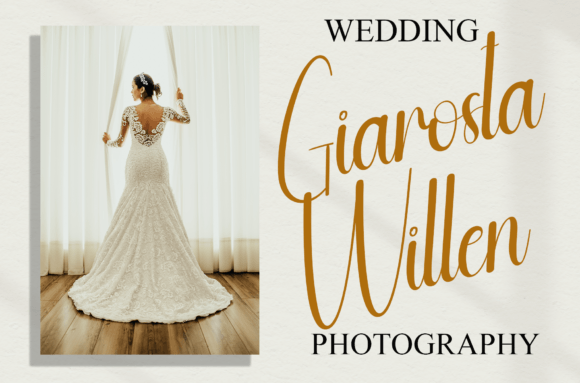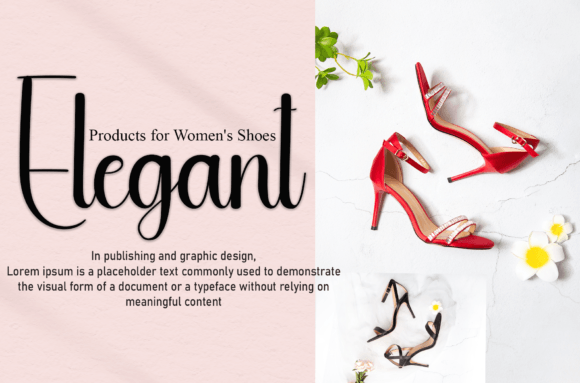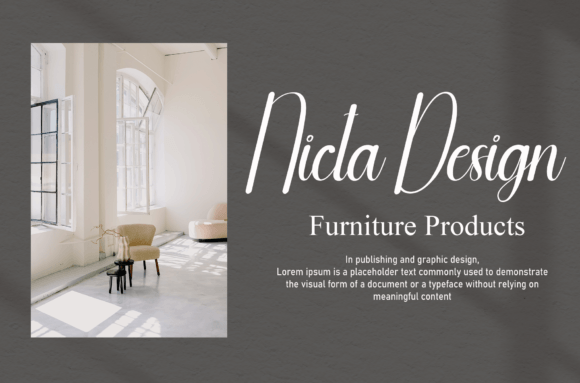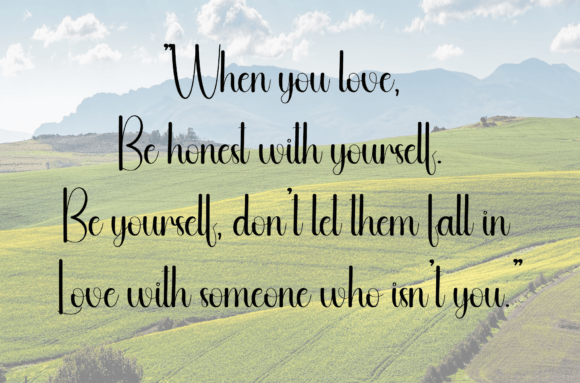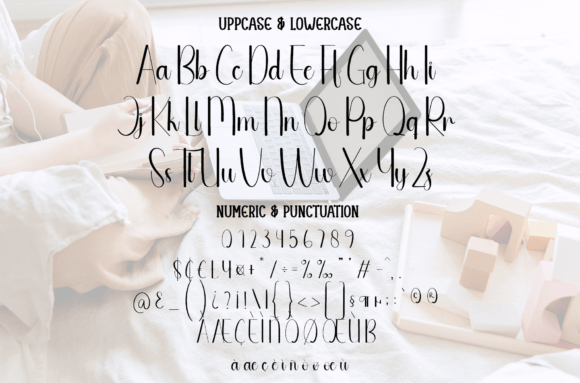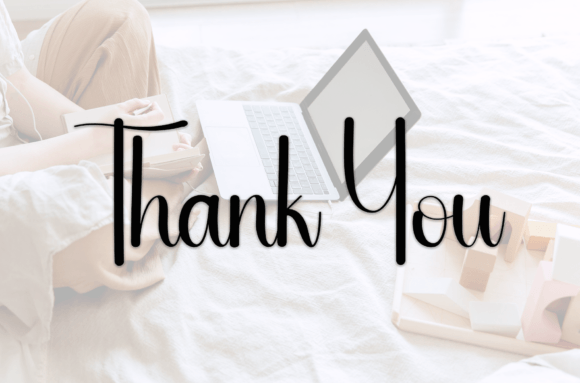
Introduction to One Homework Font
Have you ever stared at a blank canvas, trying to decide on the perfect font to bring your creative project to life? For many designers, the search for the ideal font can be a daunting task, but what if you stumbled upon a font that effortlessly captures the essence of whimsy and friendliness? Enter One Homework Font, a delightful handwritten font that’s perfect for adding a personal touch to your designs.
As a valuable design resource, One Homework Font offers a fresh and neat aesthetic that’s ideal for writing wedding invitations, cards, and other creative projects. Its high-quality design makes it a must-have for any designer looking to elevate their work. And the best part? This beautiful font is available for free download, complete with a transparent background, making it easy to incorporate into your designs.
Key Features of One Homework Font
- High-quality design resource perfect for creative projects, including school assignments and academic presentations.
- Unique characteristics include a clean and modern aesthetic, ideal for conveying professionalism and academic excellence.
- Designed to be versatile and adaptable, making it suitable for a wide range of creative projects and applications.
Honest Review: One Homework Font
I recently stumbled upon the One Homework Font while searching for a design resource to add a touch of nostalgia to my creative project. I was pleasantly surprised to find a high quality font that’s perfect for any educational-themed design.
- High quality design that’s perfect for educational-themed designs
- Transparent background for easy integration into designs
⚠️ Limitations:
- Limited character set (only includes uppercase and lowercase letters, numbers, and punctuation)
- No bold or italic font styles available
Overall, I’m impressed with the One Homework Font. While it has some limitations, its high quality design and free availability make it a great addition to any design project. If you’re looking for a simple, educational-themed font, the One Homework Font is definitely worth checking out.
One Homework Font is a free design resource that offers a high-quality, creative solution for your projects. This versatile font is perfect for anyone looking to add a professional touch to their presentations, documents, or digital artwork.
Getting the Most Out of One Homework Font
To get the most out of One Homework Font, consider the following tips:
- Use the font on a transparent background to create a clean and modern design.
- Combine One Homework Font with other high-quality design resources for a cohesive look.
One Homework Font is perfect for:
- Documents and proposals
- Digital artwork and graphics
Alternatives to One Homework Font
Montserrat is a popular sans-serif font that is great for creative projects, especially when you need a high-quality font for a design resource. It’s available for free download with a transparent background, making it perfect for designing on a white background. Use Montserrat when you need a clean and modern look for your design. Compared to One Homework Font, Montserrat is more versatile and has a wider range of weights and styles.
Open Sans is a clean and modern sans-serif font that is great for designing on a computer or mobile device. It’s a free download with a transparent background, making it easy to use in any design project. Use Open Sans when you need a high-quality font that is easy to read on a screen. Compared to One Homework Font, Open Sans is more readable on small screens and has a more neutral tone.
Lato is a beautiful sans-serif font that is great for designing a creative project. It’s available for free download with a transparent background, making it perfect for designing on a white background. Use Lato when you need a font that is both elegant and modern. Compared to One Homework Font, Lato has a more sophisticated look and feel.